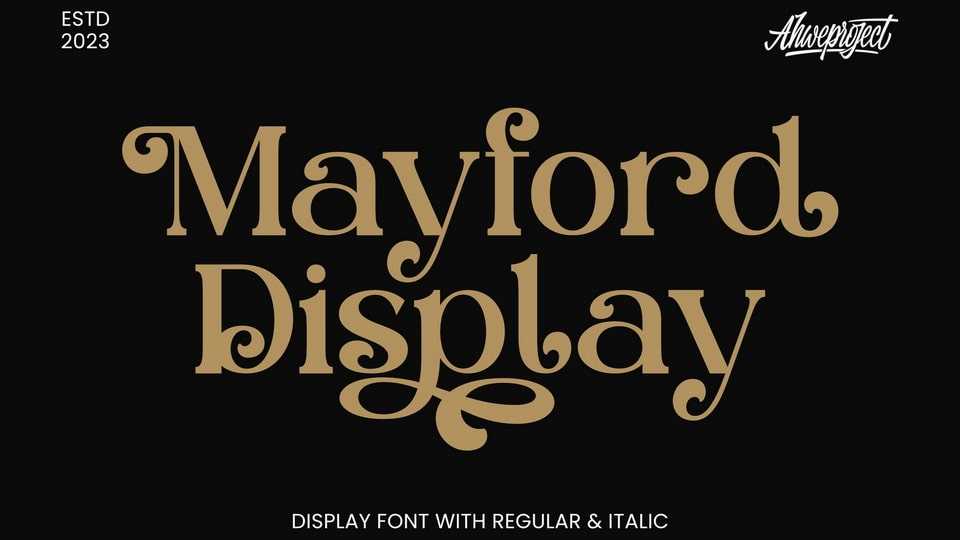
Download Manford Display font, a modern serif typeface with a unique style, a light and high contrast font perfect for feminine logo signs, fashion heads and editorial designs.